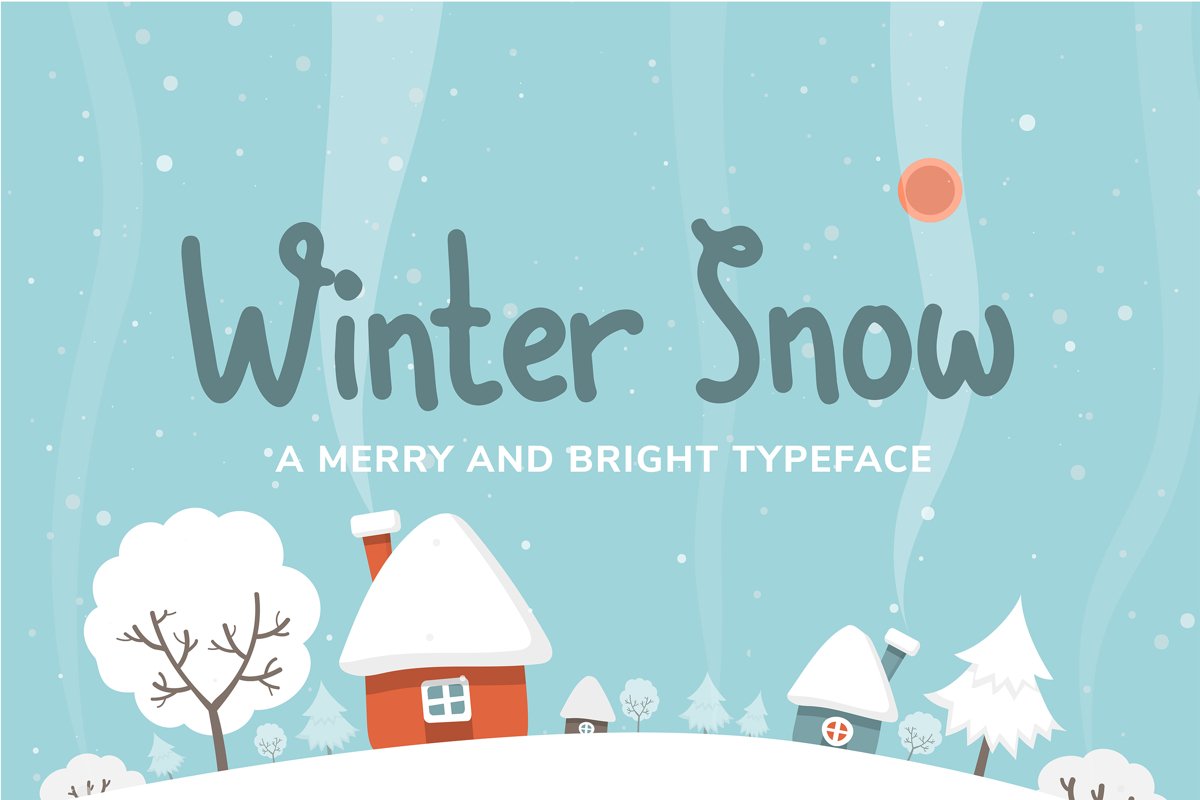
Winter Snow | Fun winter font
Winter Snow
Winter Snow is a festive & friendly display font. It is perfectly suited for any holiday-themed crafting project!